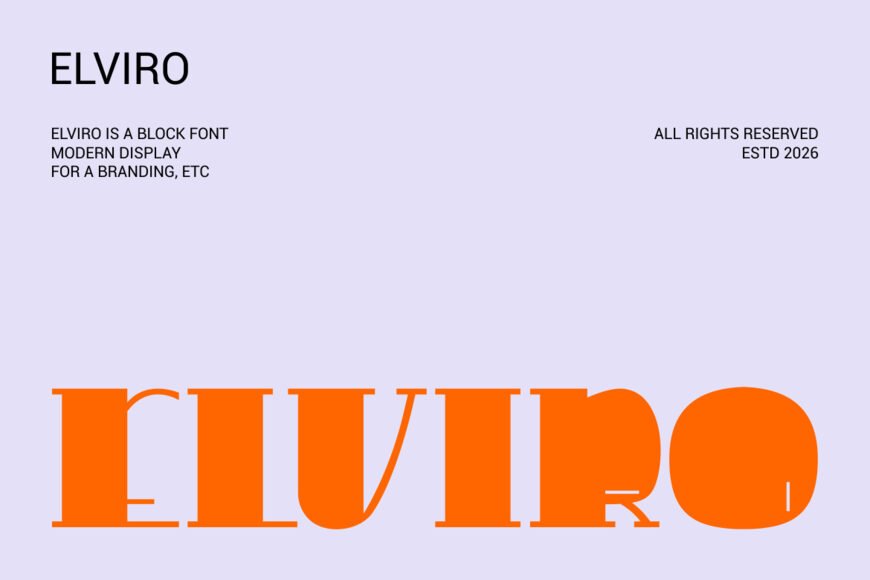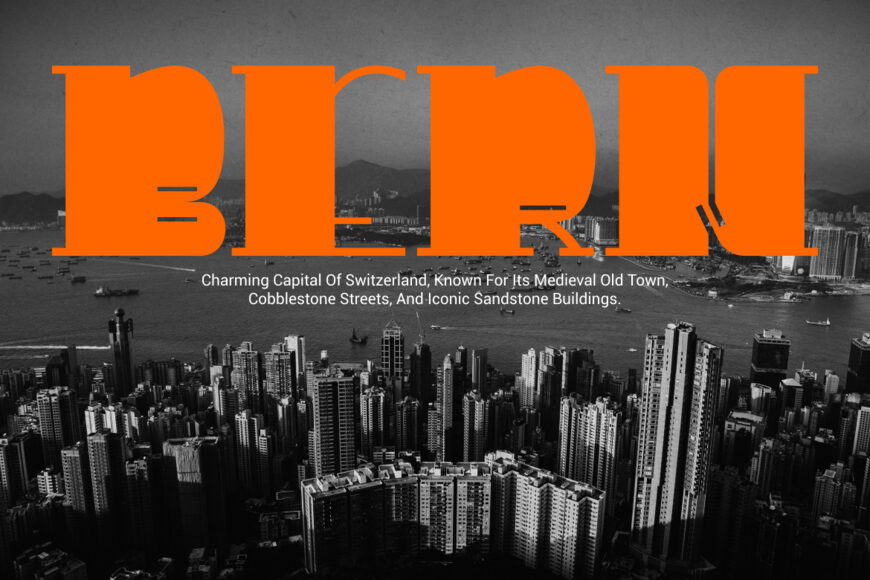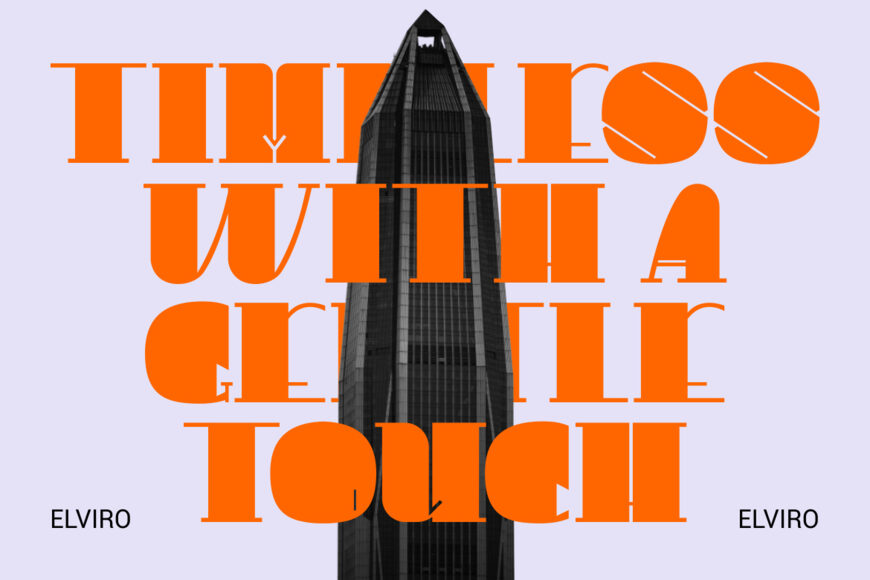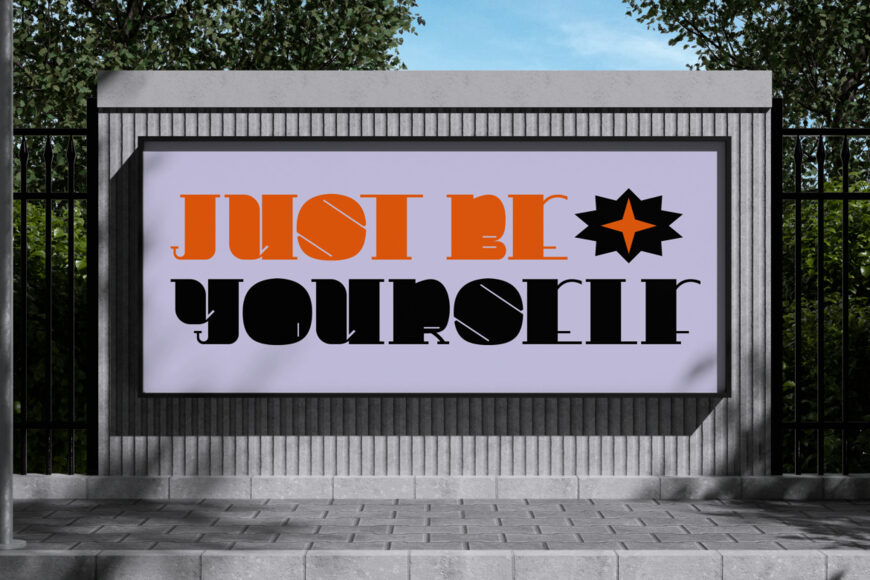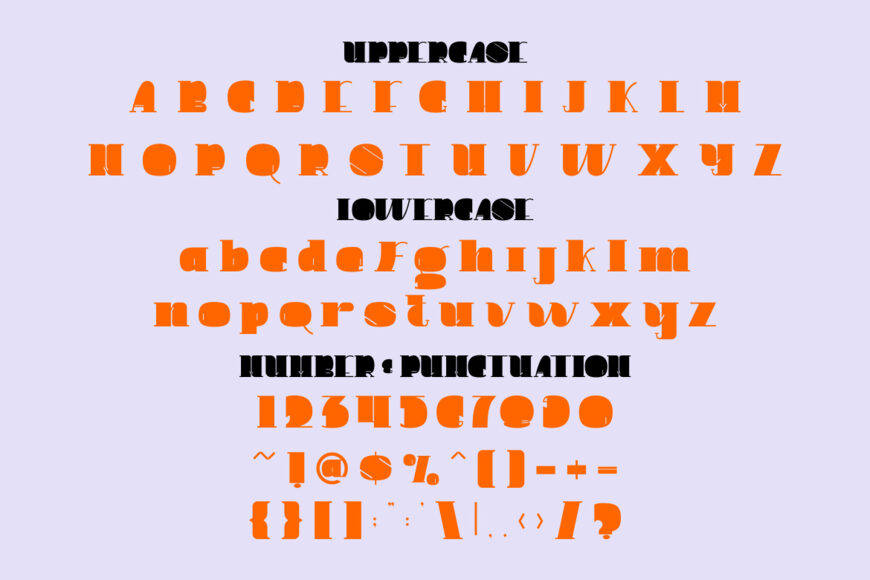
Elviro Font
Elviro is a bold display typeface defined by geometric structure and solid, powerful forms. Its wide, compact characters use thick strokes and minimal contrast to create a dense visual presence. Mostly sharp edges are balanced by occasional curved details, giving the design a distinctive touch. Tight, controlled counters reinforce its sturdy block-like appearance.
Combining contemporary block styling with an industrial edge, Elviro conveys strength, confidence, and clarity. It is well suited to logos, branding systems, and attention-grabbing headlines.